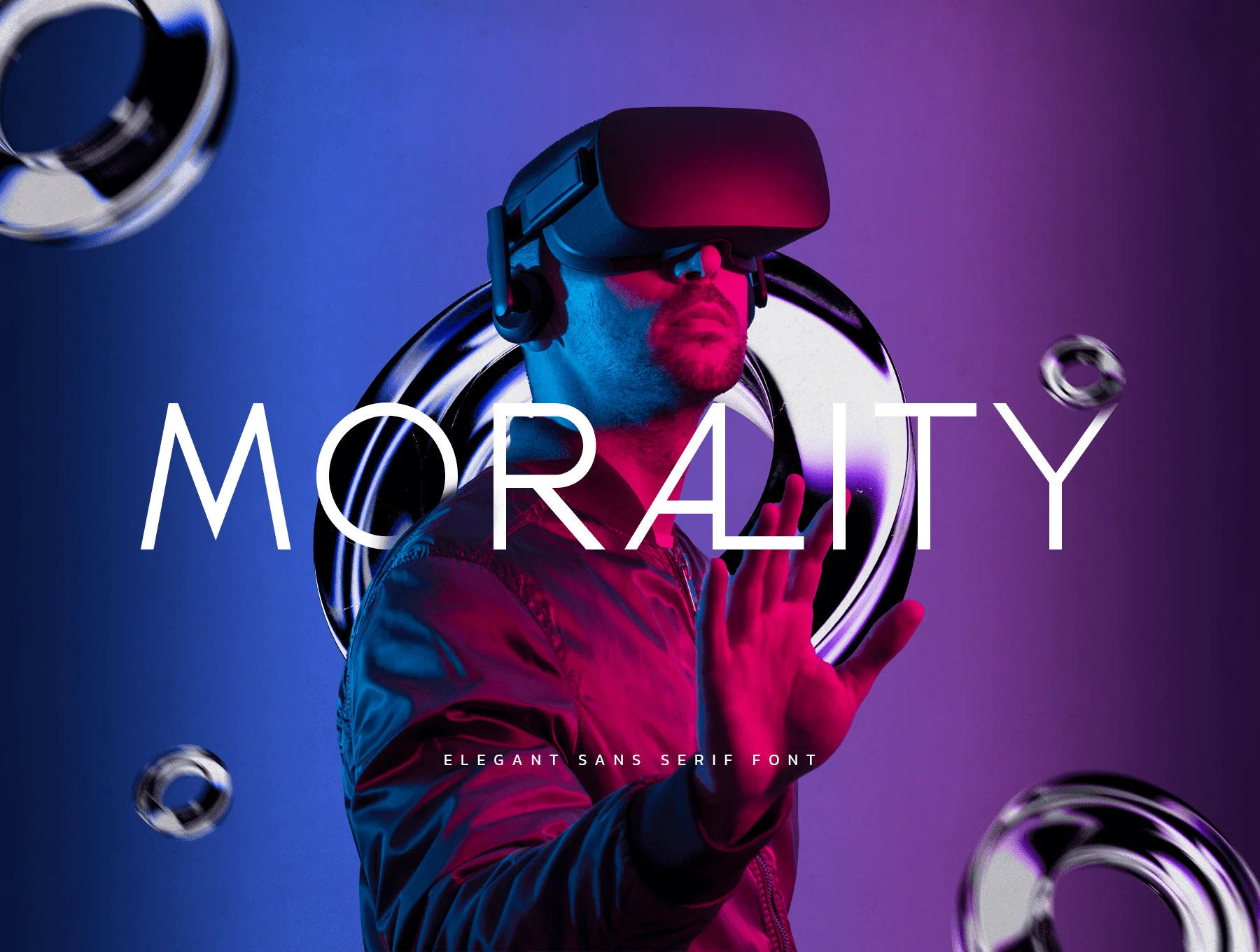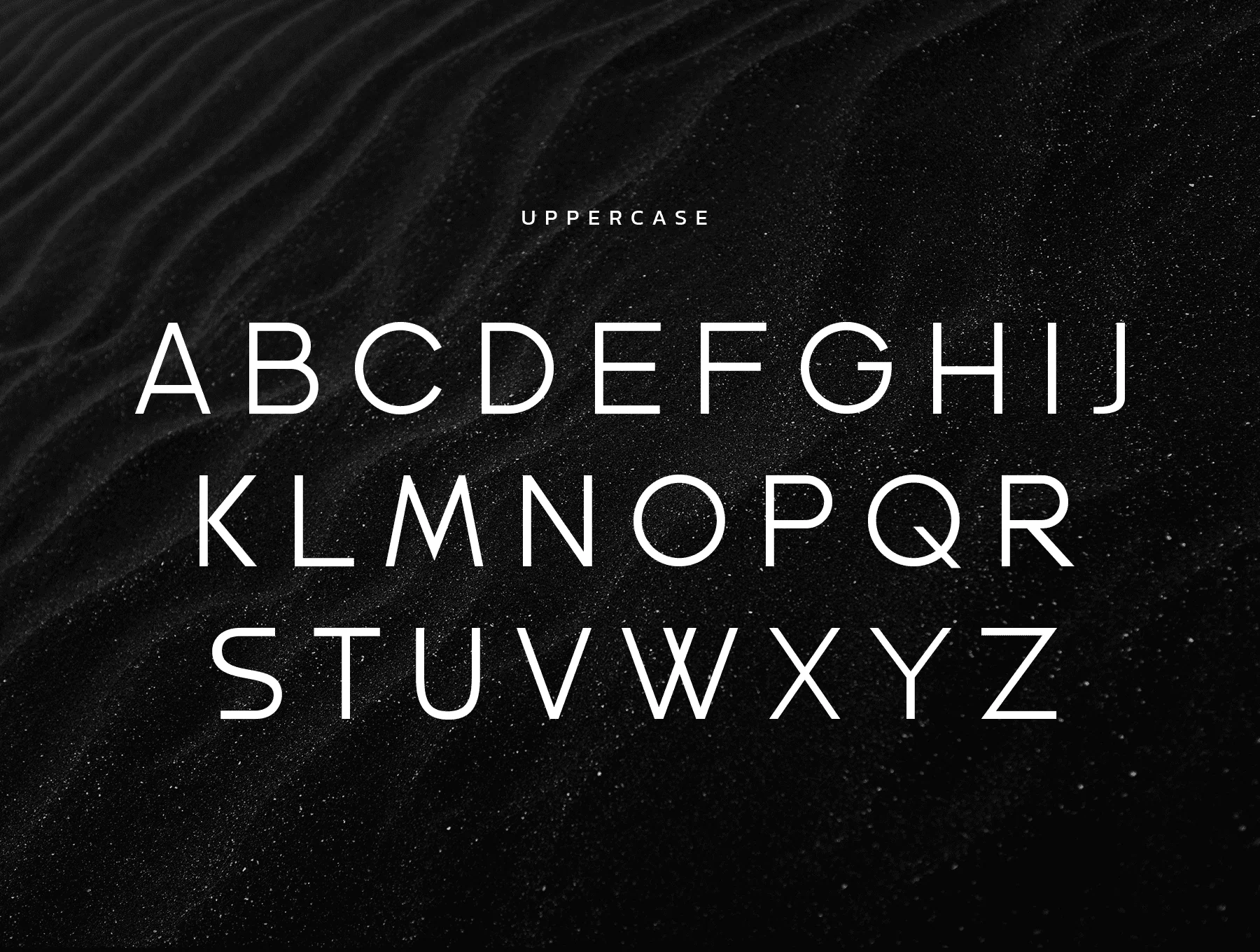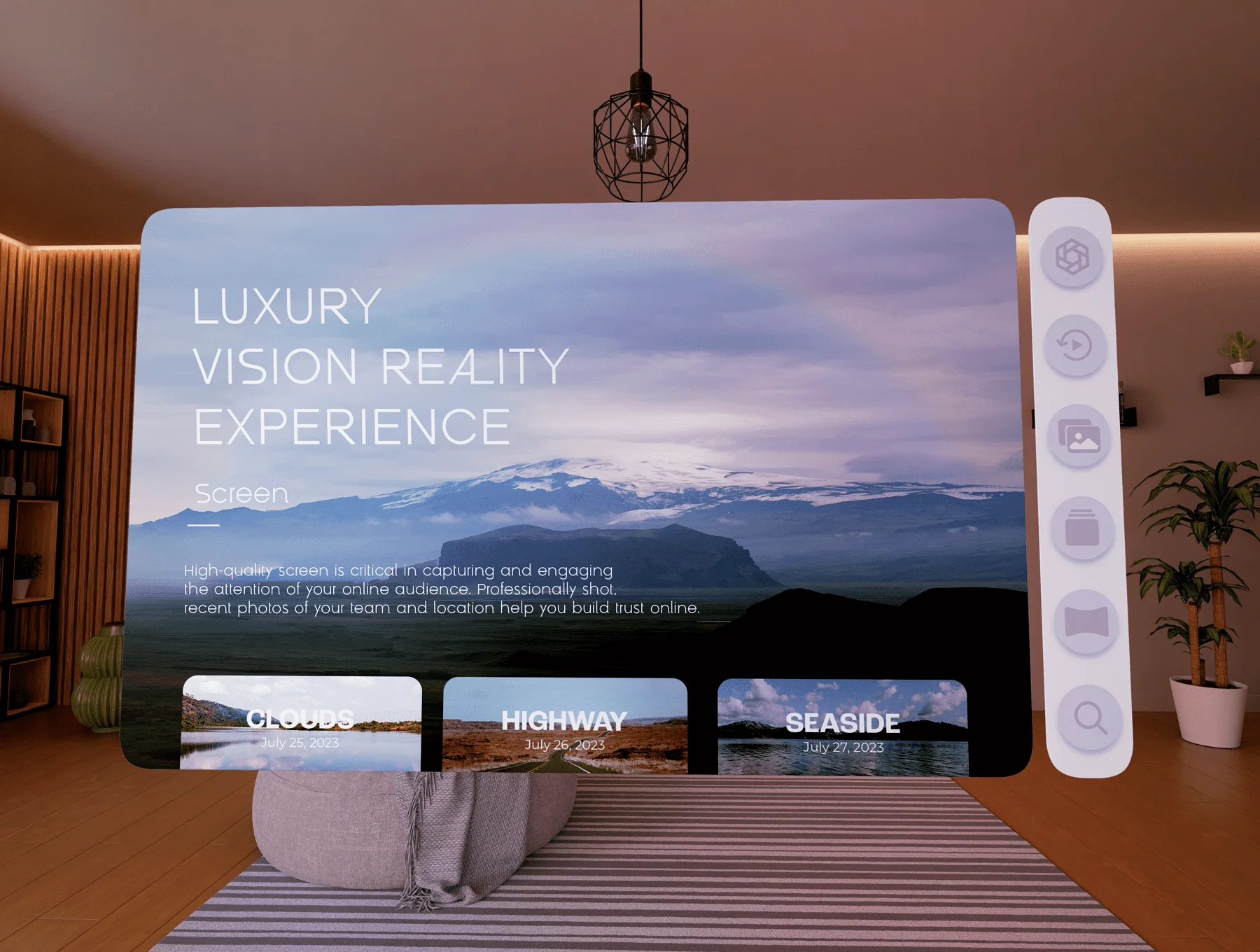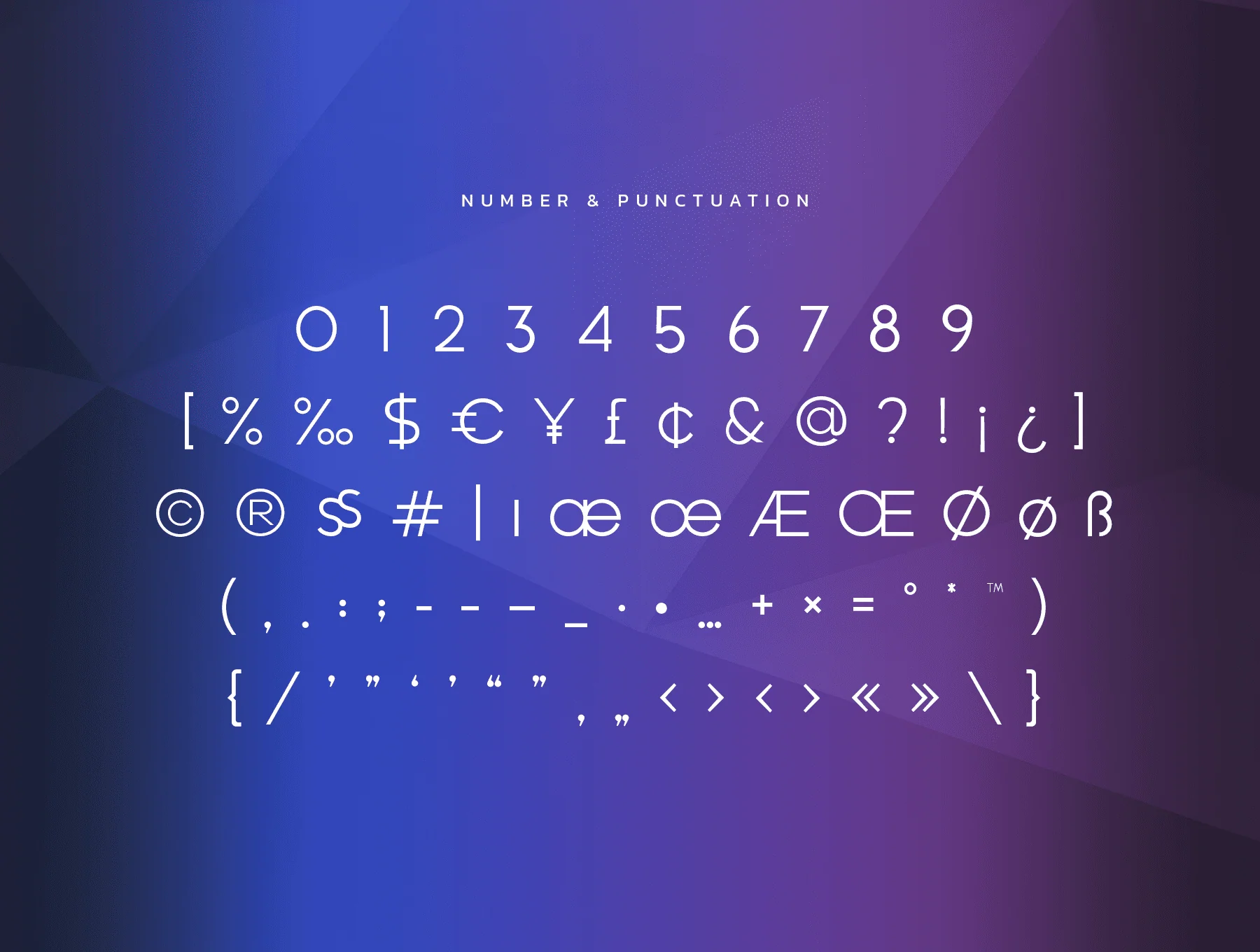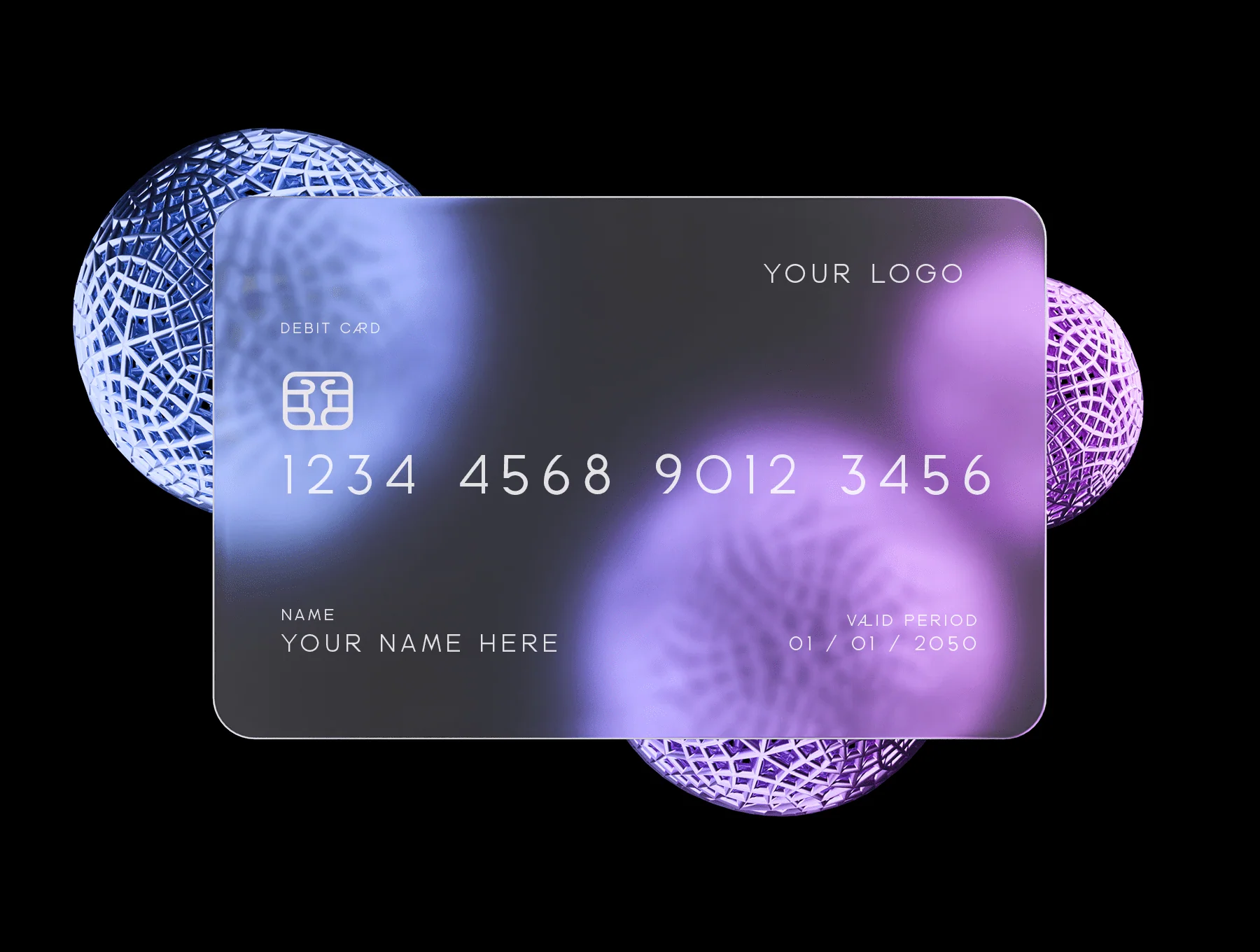
Morality Font
Morality - Refined Sans Serif Typeface
Numbers and punctuation marks
Alternate stylistic characters
Morality is a sleek modern sans serif typeface ideal for branding, logos, posters, headlines, titles, and bold typography. Designed with a distinctive contemporary look, it helps your projects express their core message with style.